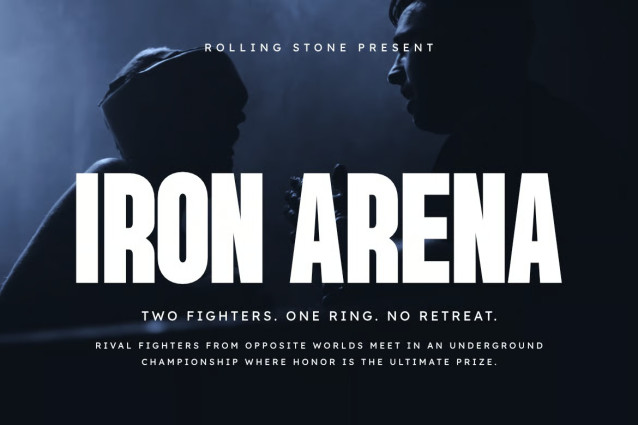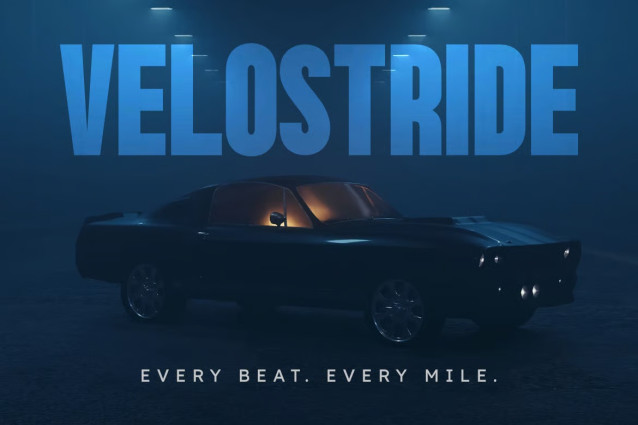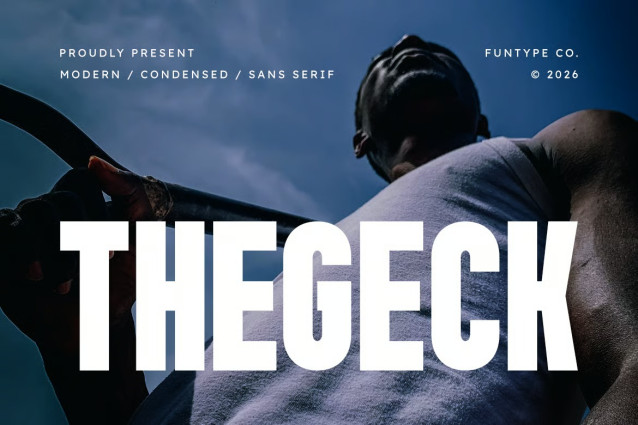
Thegeck – Modern Condensed Sans Serif Font
Thegeck is a bold, high-impact, and modern condensed sans serif font, engineered to bring a powerful athletic presence, tall narrow geometry, and dynamic display aesthetic to contemporary design layouts. Featuring a heavy vertical profile, space-saving condensed proportions, and sharp angular notch cutouts, Thegeck introduces a dynamic sports broadcast identity, high-energy editorial publishing, tournament promotion, and prominent digital presentation designed to claim absolute visual focus.
This font family is the ultimate choice for creative directors, athletic event organizers, and publication publishers looking to implement a robust typography identity for major text hierarchies. Whether you are developing bold corporate enterprise logotypes, athletic tournament posters, energetic beverage packaging labels, cinematic action movie title sequences, outdoor campaign headers, or prominent digital web banners, Thegeck stands out with supreme legibility and commanding structural confidence.